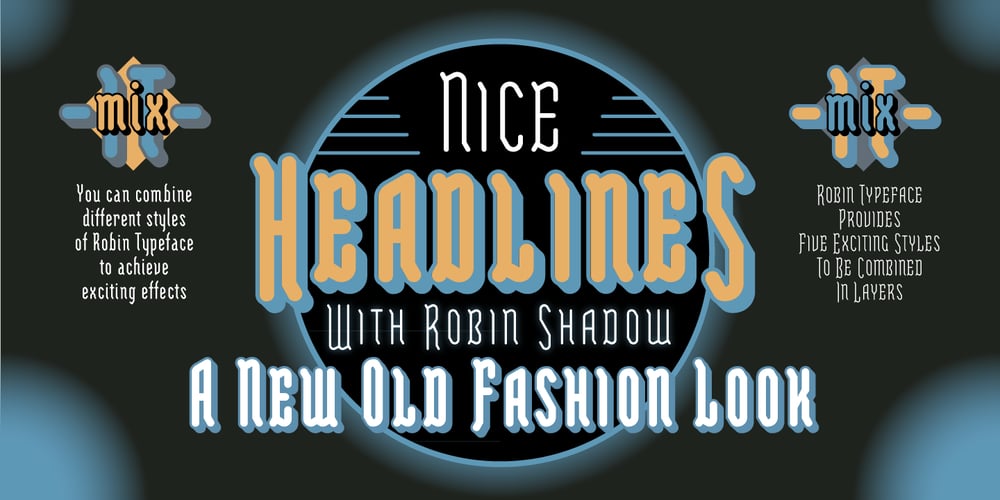
JMTF Robin Font Family was designed by John Moore and published by John Moore Type Foundry. JMTF Robin contains 9 styles and family package options. JMTF Robin is a new post-modernist typeface in the spirit of Art & Crafts, born as a concept of a reformulation of a Gothic traditional building structure. Interestingly medieval structural architectural rescue form is for creating a font of traits absolutely contemporary without losing its artisan flavor. JMTF Robin is then a modular typography with very specific characteristics that provides an innovative texts while an appearance of great personality. Early versions of Robin was winners in Letras Latinas 2006. JMTF Robin representing a before and after in terms of contemporary texts composition. JMTF Robin is a typeface family that is presented in a wide variety of forms, from JMTF Robin in condensed forms to other roman proportions like Robin9, ideal for text, also JMTF Robin comes in Shadow and Double Outline. I dedicate this letter to creative genius William Morris father of modernism.